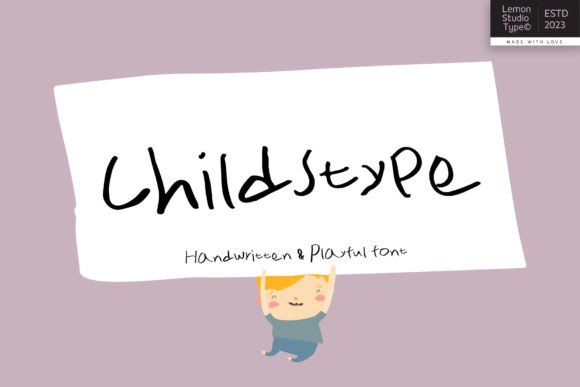
Introducing Childstype Font, the perfect addition to your collection of Best Fonts for Web Sites! Created by the talented WildaKhairunnisa, this script font brings a touch of whimsy and charm to any project. With its quirky handwritten style, Childstype Font replicates the innocent and naive writing of a child, making it ideal for adding a unique and playful element to your designs.
Imagine the possibilities with Childstype Font. Whether you're working on a website, a logo, or a creative craft project, this font will instantly captivate your audience with its delightful and endearing appeal. Its hand-drawn letterforms exude authenticity and evoke a sense of childlike wonder, making it the perfect choice for any project that aims to inspire joy and creativity.
With Childstype Font, your designs will stand out from the crowd. This font is not just another run-of-the-mill script font; it's a true work of art. The attention to detail and the carefully crafted characters are a testament to the skill and passion of its creator. Each letter has been meticulously designed to ensure a seamless and visually pleasing result, guaranteeing that your projects will make a lasting impression.
But Childstype Font is not just visually stunning; it's also incredibly versatile. Its clean and legible letterforms make it suitable for a wide range of applications. Whether you're designing a website, a blog, an invitation, or even a children's book, this font will adapt effortlessly to your needs. Its ability to evoke a sense of innocence and playfulness will resonate with your audience and leave a lasting impact.